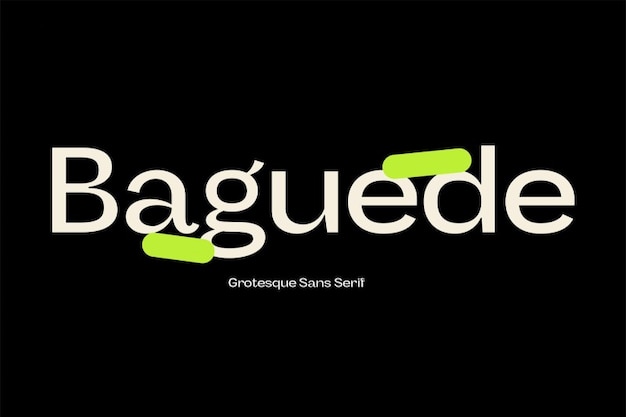
Baguede Font
It is a font that strikes the perfect balance between simplicity and style. With its rounded and straightforward design, it's a versatile choice for various applications. Whether you're designing for a magazine or a digital platform, "Baguede" offers a contemporary and clean look. Its slight hint of blur adds a touch of uniqueness, making it a font that stands out without being too flashy.